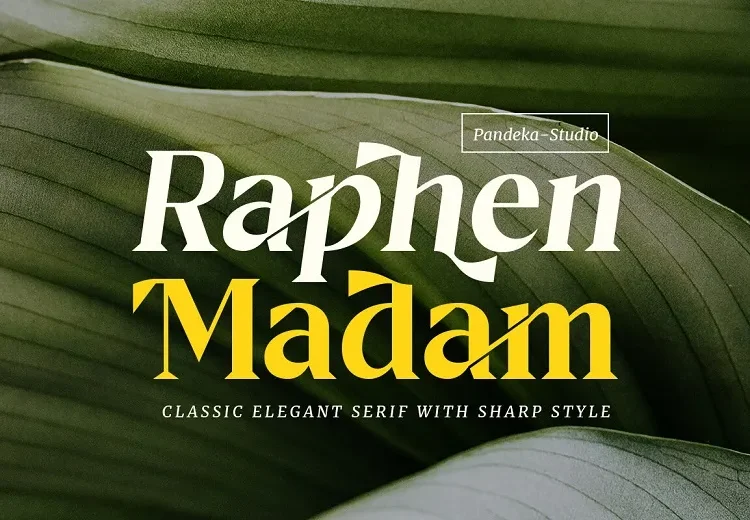
Raphen Madam Font
Raphen Madam is a classic and elegant serif font designed with unique shapes and creative ligatures, making it ideal for brand and logo design. Its stylish and bold character is well-suited for large-sized text in both print and web media.
Featuring an Italic style, Raphen Madam includes a complete set of lowercase and uppercase letters, numerals, punctuation marks, and multilingual characters. This versatility ensures it can adapt to a variety of design needs while maintaining its sophisticated appearance.